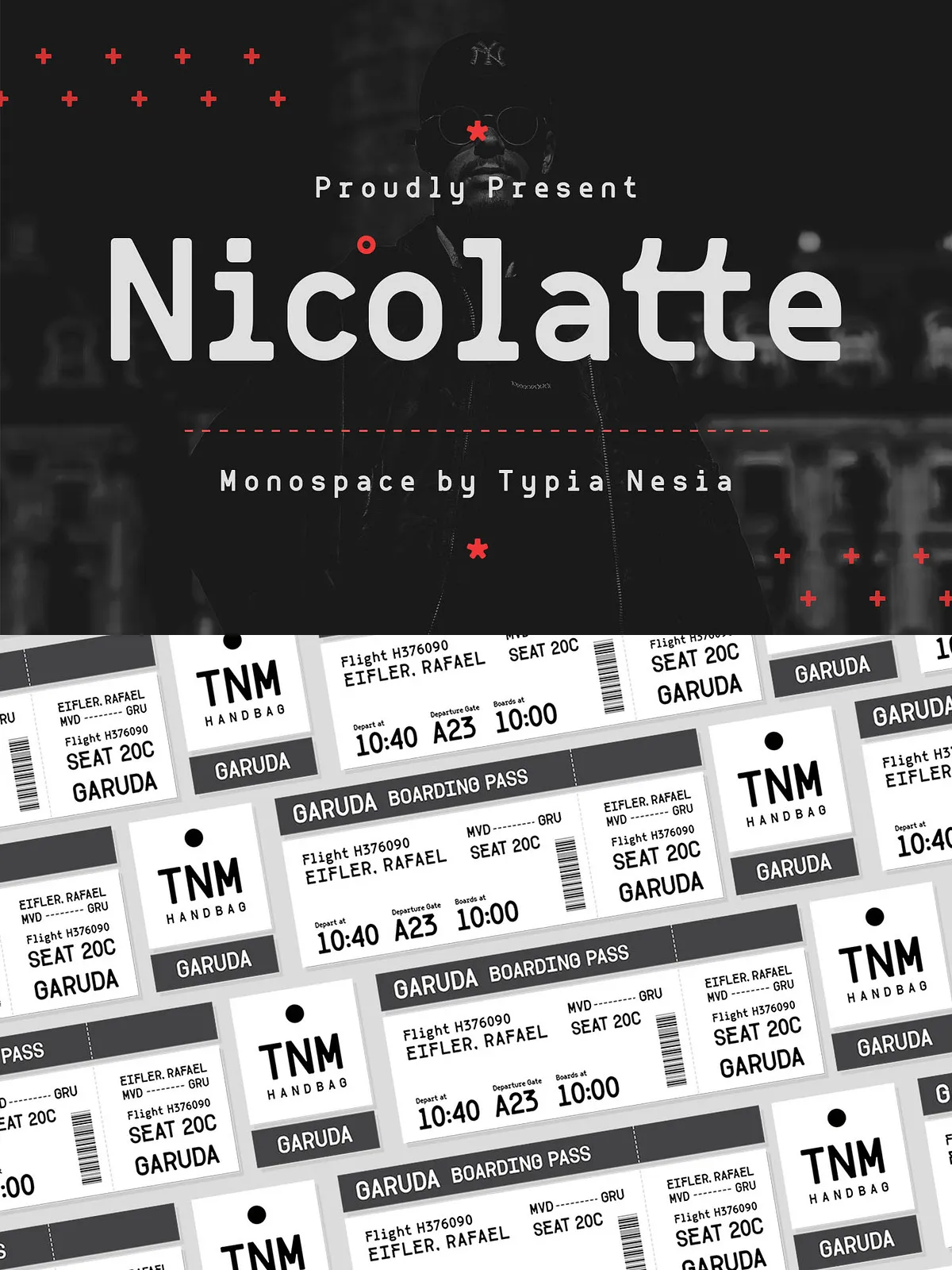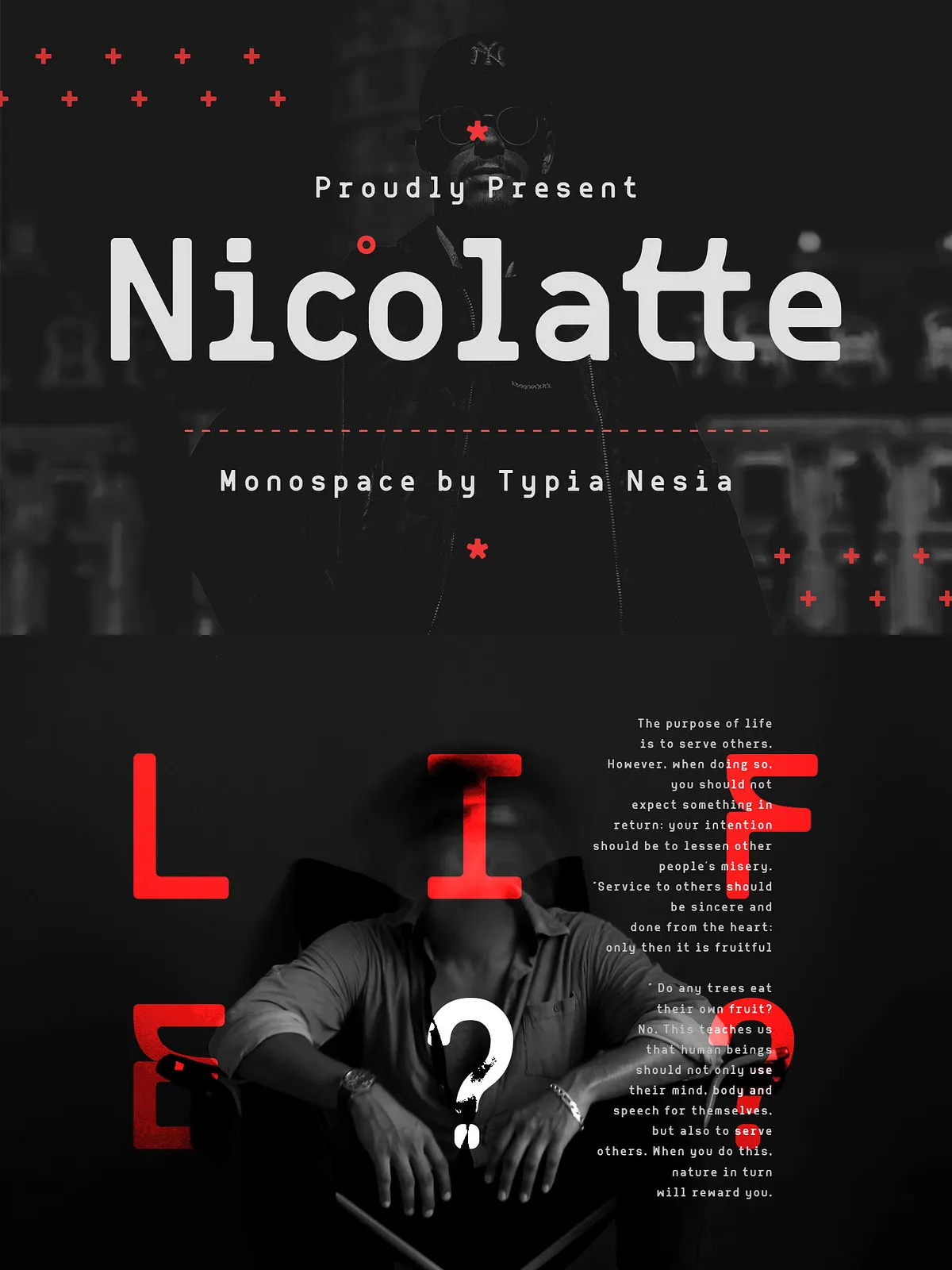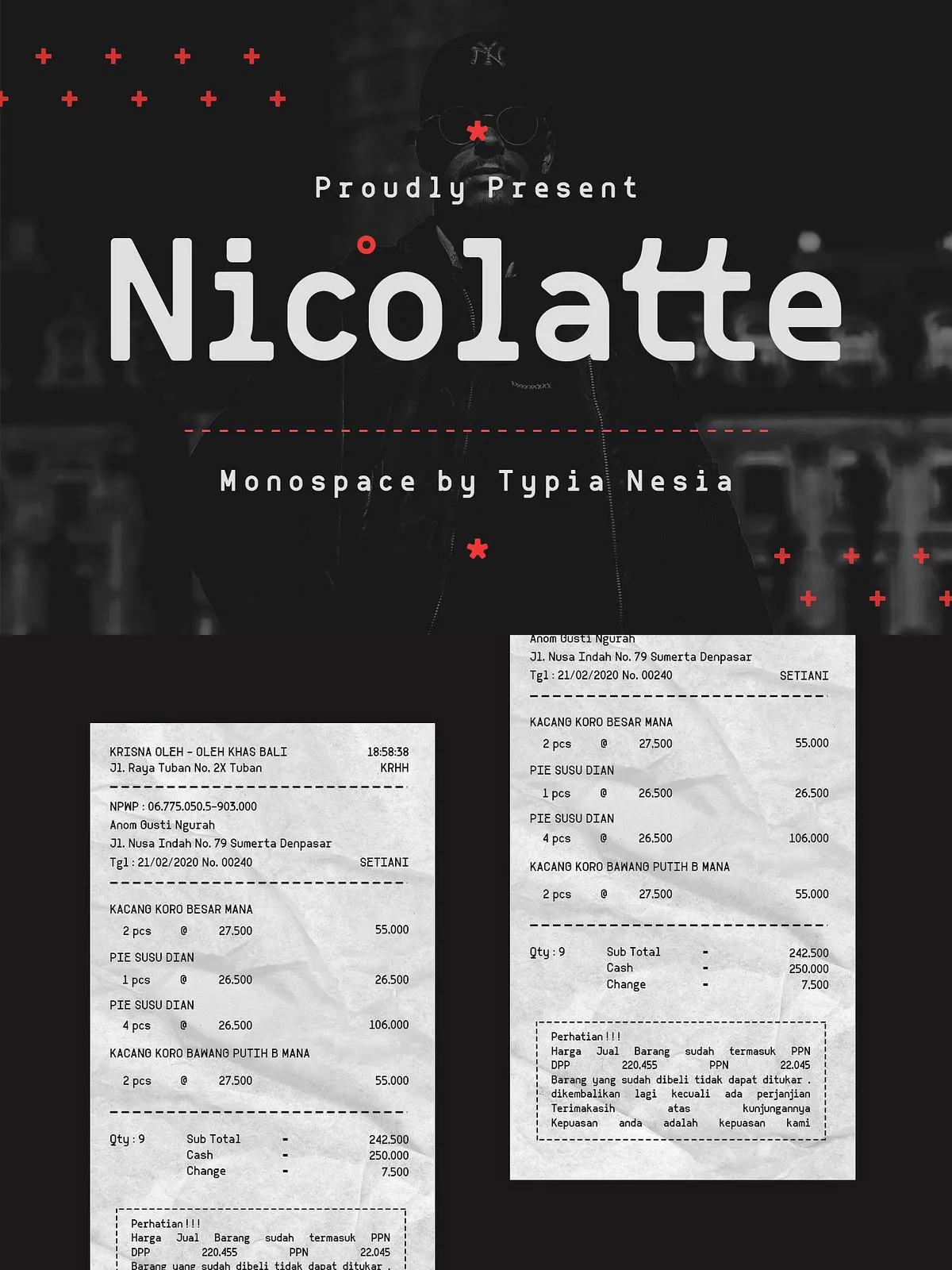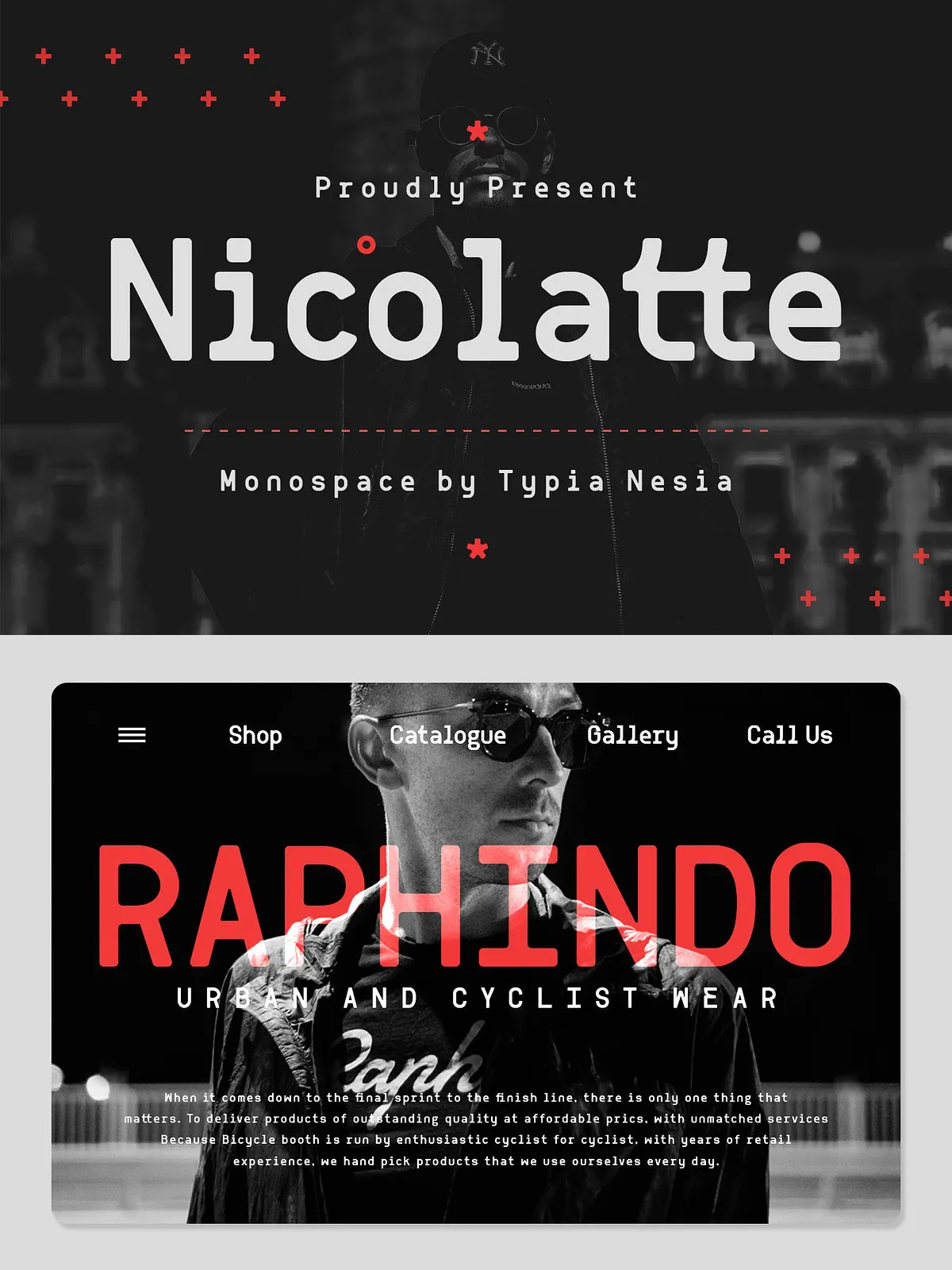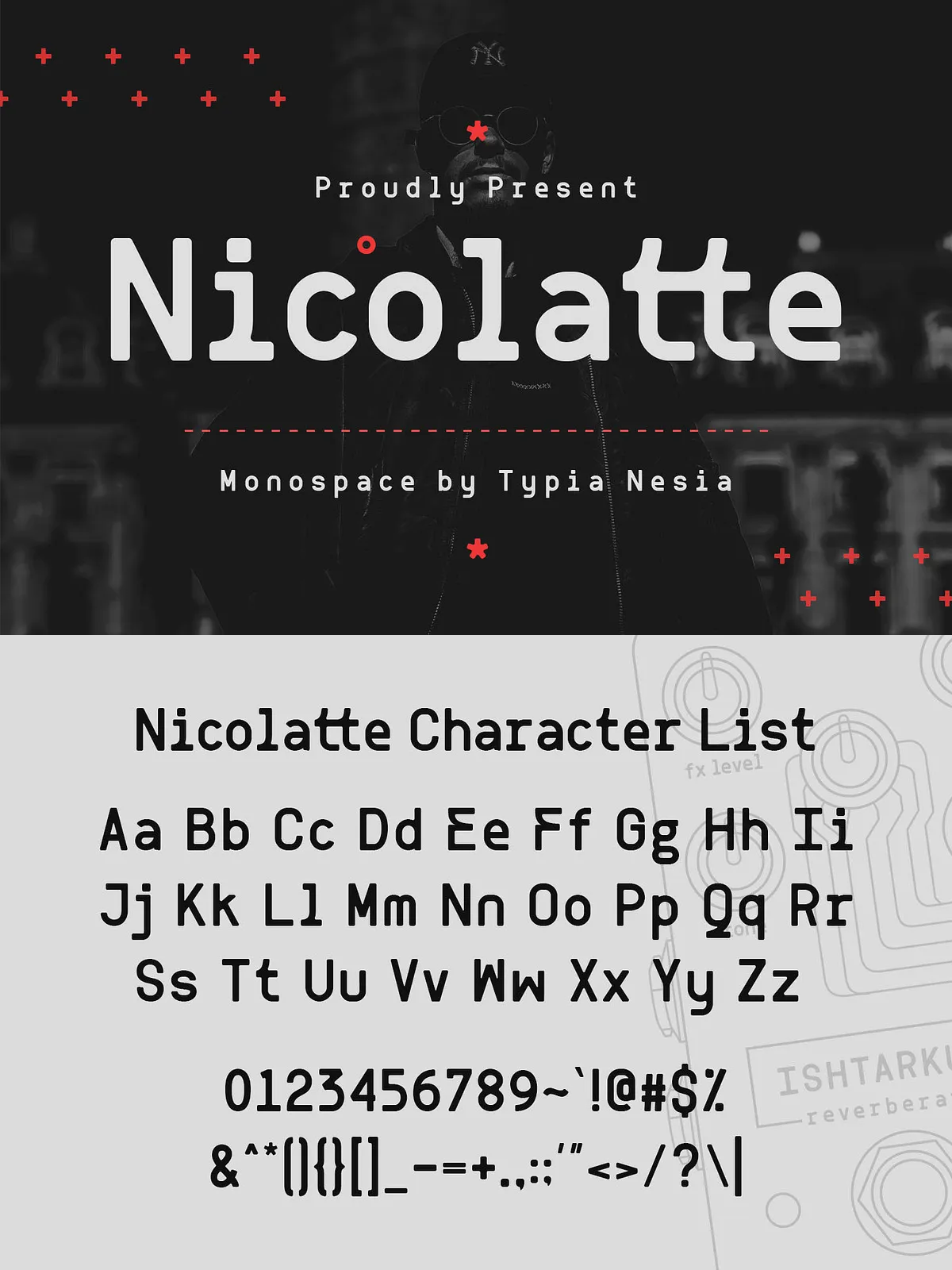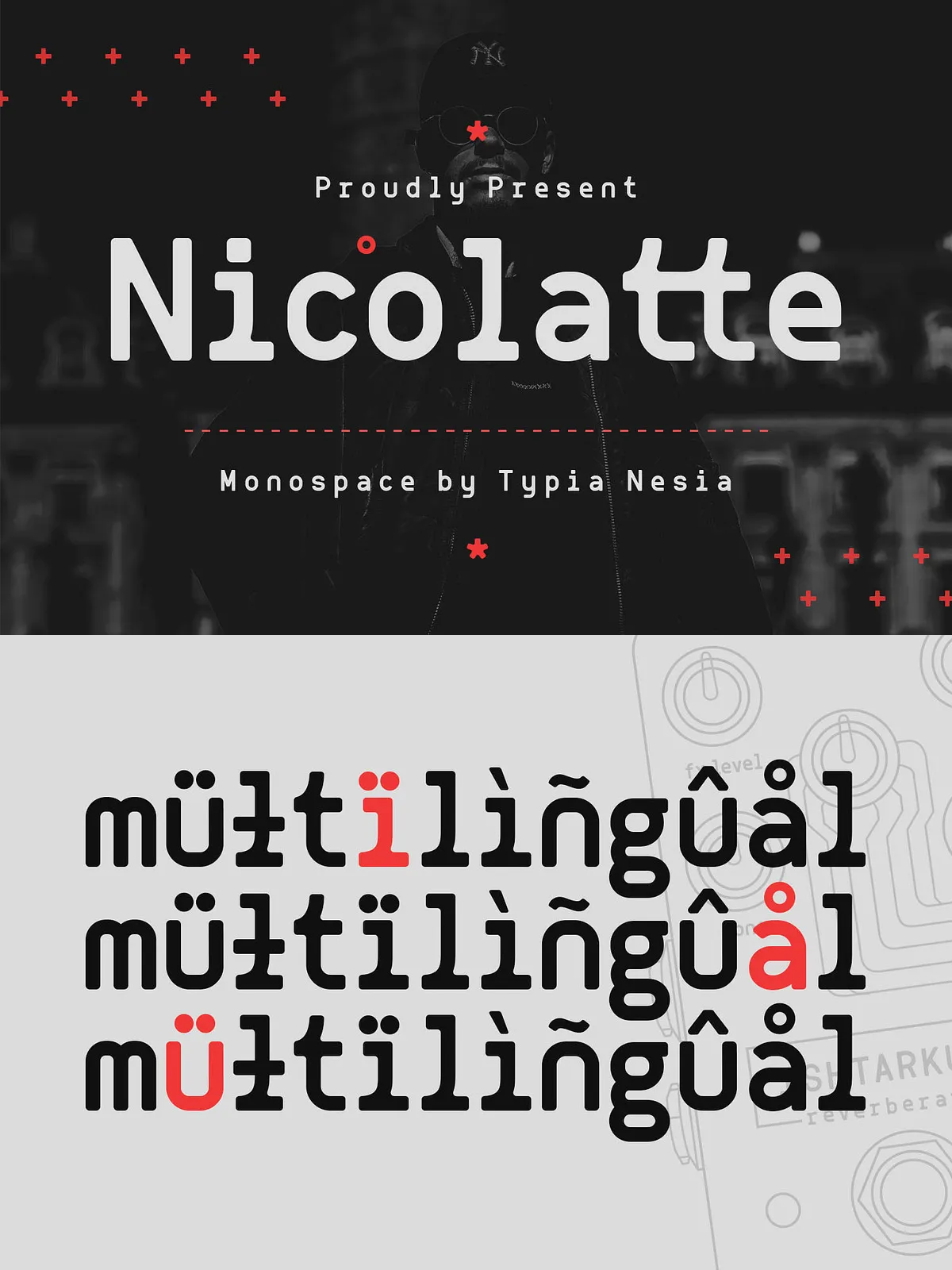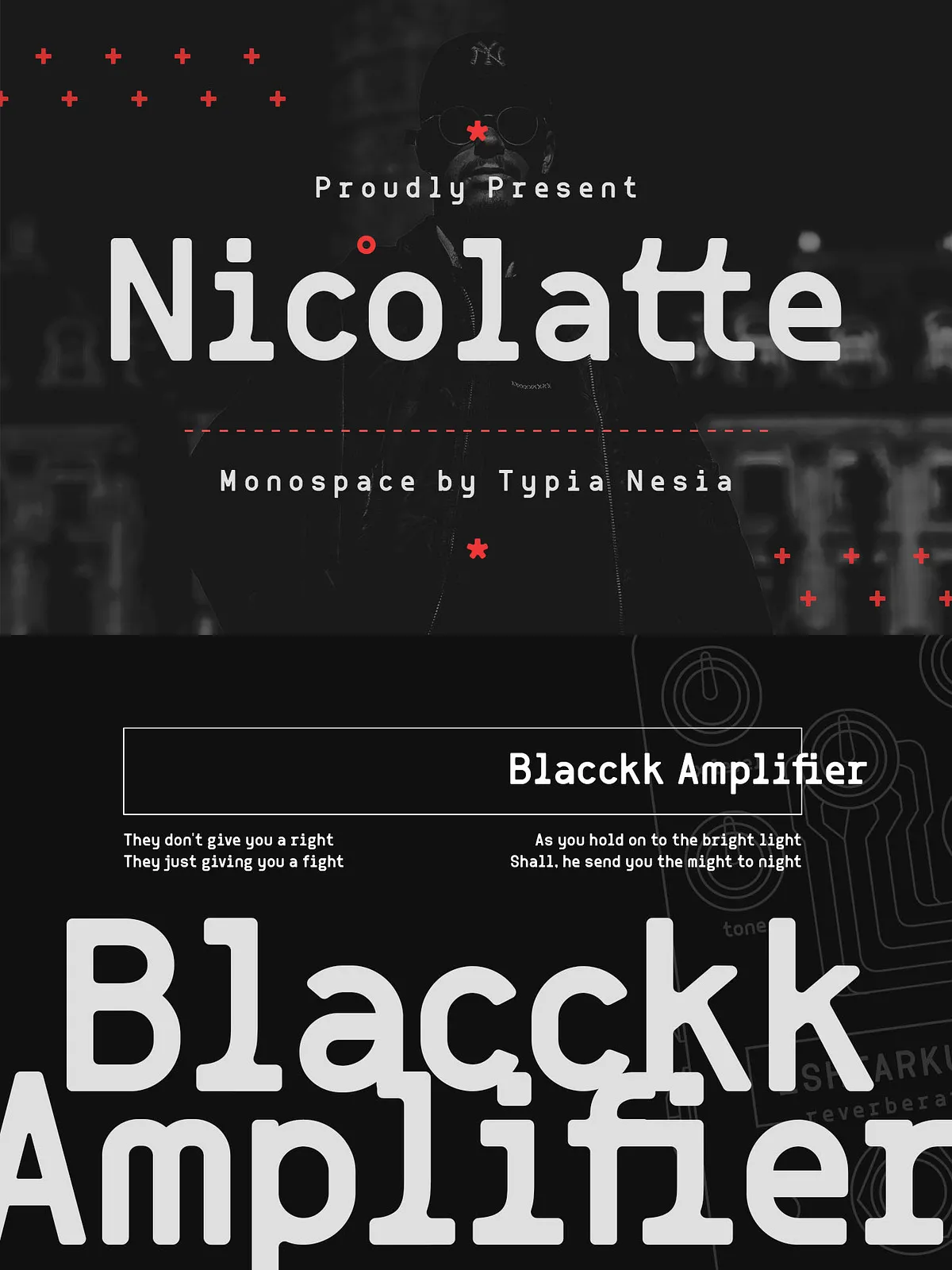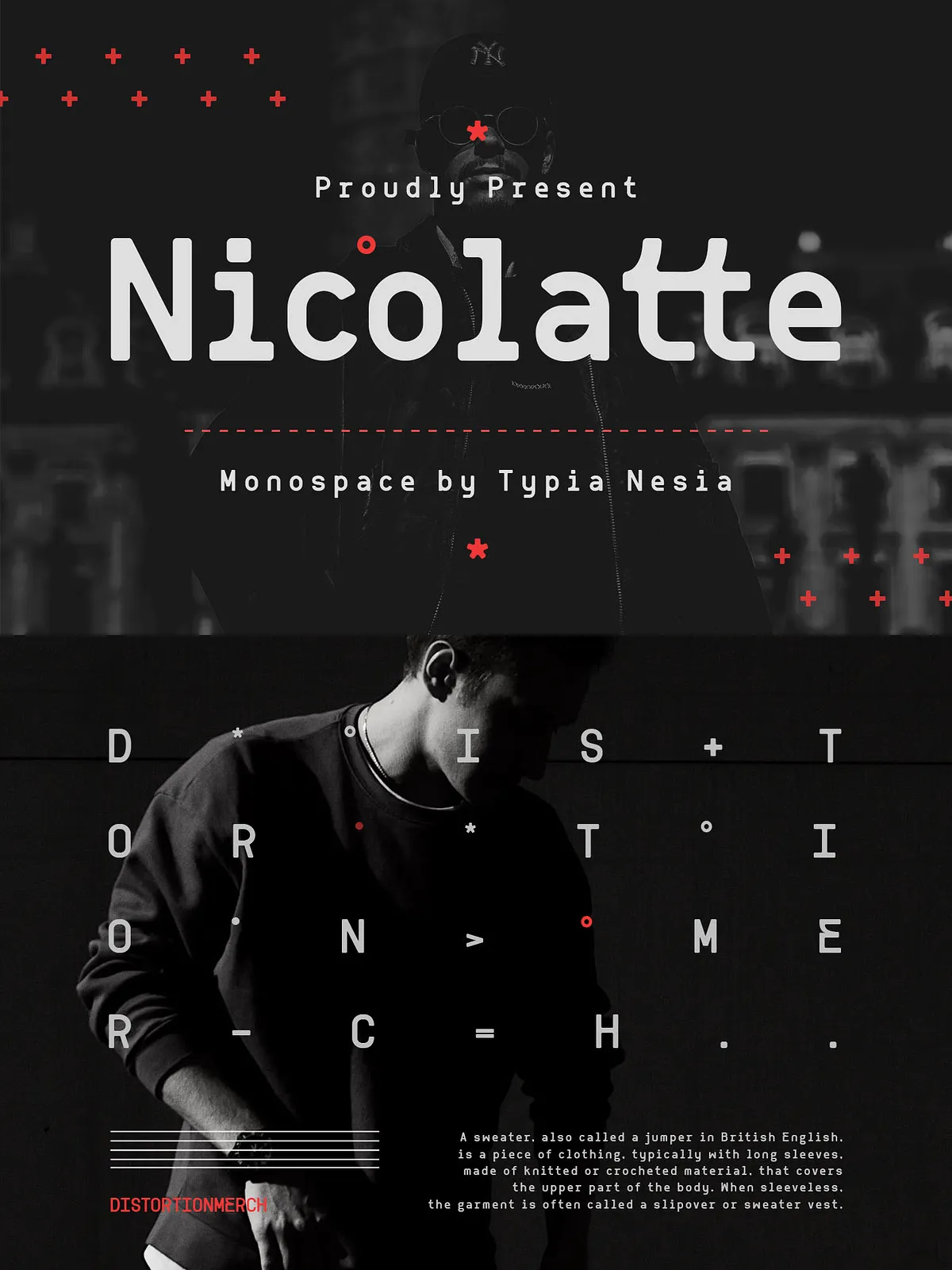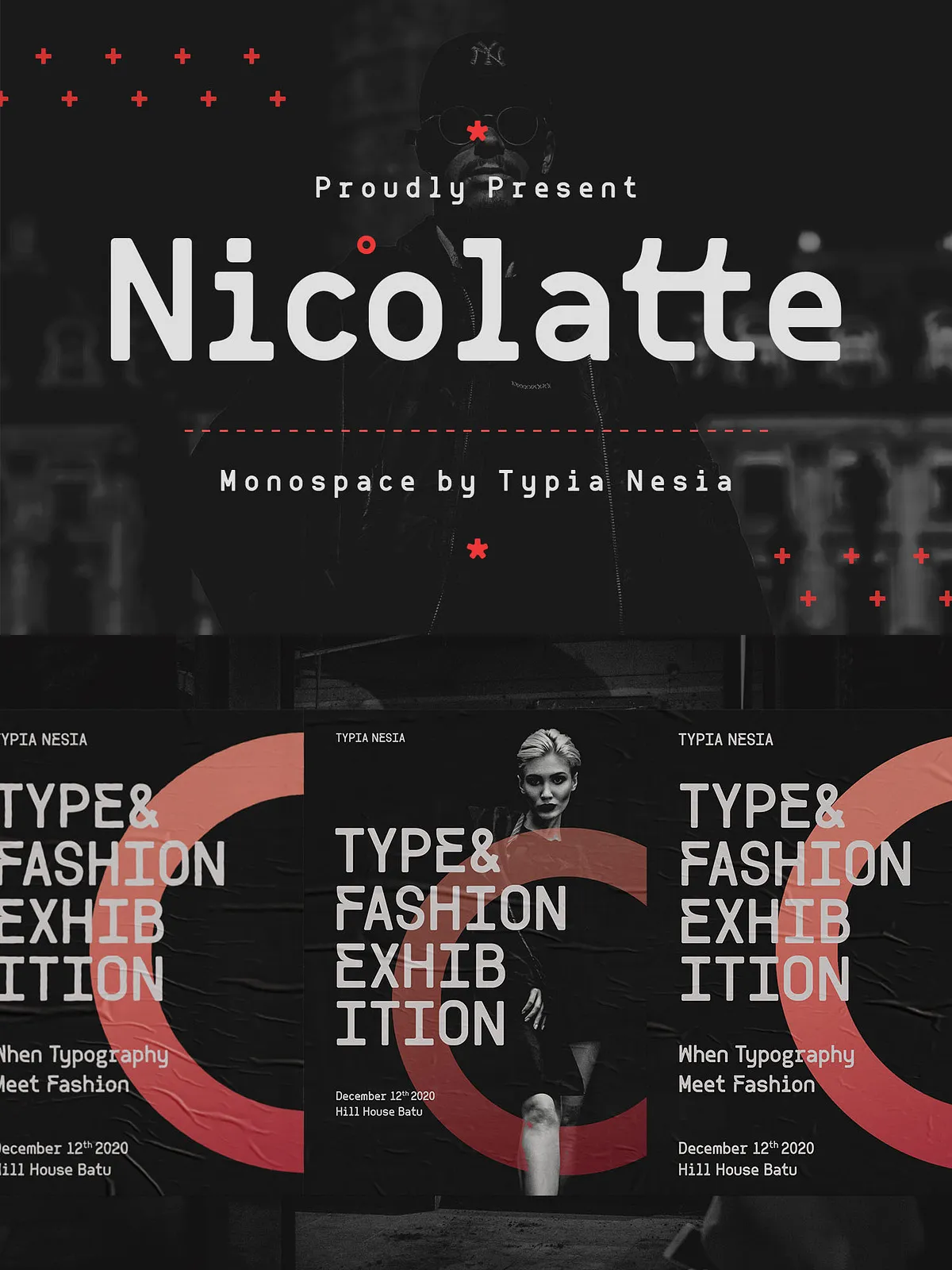
Nicolatte is a sharp, modern monospace sans font designed to perform across a wide range of commercial and creative uses. Built with consistent, fixed-width letterforms, Nicolatte delivers precise alignment and predictable rhythm that designers can rely on for technical layouts and bold display work alike. The typeface carries a distinctly futuristic tone that fits sci-fi posters, technology branding, game user interfaces, and any project that needs a clean, engineered aesthetic.
- True Monospace Metrics: Every glyph occupies the same horizontal space, ensuring columnar alignment for tables, code-style layouts, and tabular data without manual kerning.
- High Legibility: Clear counters and open shapes preserve readability at small sizes while retaining personality at headline scale.
- Versatile Use Cases: Works equally well for logos and branding, product packaging, posters, tickets, apparel graphics, and on-screen displays.
- Futuristic Character: Geometric, slightly technical letterforms project a sci-fi and technology-forward character suitable for modern digital identities.
- Robust Symbol Set: Includes numerals and punctuation designed for decisive readability in technical and industrial contexts.
Practical Applications
Branding & Logo Design
Use Nicolatte for marks and logotypes where a contemporary, engineered voice will strengthen brand identity. The monospace rhythm offers a distinctive, mechanical feel that reads as technical yet refined. Pair Nicolatte with a softer humanist sans for body copy to balance precision with warmth.
Packaging & Product Design
Apply Nicolatte on product labels and packaging to convey innovation and clarity. Its consistent spacing helps maintain visual order across ingredient lists, serial numbers, and barcodes while reinforcing a cohesive futuristic aesthetic.
Digital Interfaces & Games
Implement Nicolatte in UI mockups, in-game menus, HUD elements, and digital boarding displays. The mono metrics simplify alignment of UI elements and enhance the look of data-driven screens, terminals, and sci-fi themed interfaces.
Print & Event Materials
Design striking posters, tickets, and apparel graphics using Nicolatte for headlines and callouts. The typeface’s mechanical appeal complements minimalist layouts, vector line art, and stark color palettes common in contemporary event design.
Best Practices & Pairing Suggestions
Best Practices
- Reserve Nicolatte for headings, labels, interface text, and any content that benefits from fixed-width alignment.
- Use a complementary readable sans or serif for long-form body text to maintain optimal reading comfort.
- Test numerals and symbols at intended sizes—monospace numerals can behave differently in tight typographic systems, so confirming clarity in context is essential.
Pairing Suggestions
Pair Nicolatte with neutral humanist sans-serifs for editorial and UI systems, or with a subdued serif to introduce contrast in packaging and print. For cinematic or poster work, match Nicolatte with bold geometric shapes, grid systems, and high-contrast color palettes to emphasize its technical character.